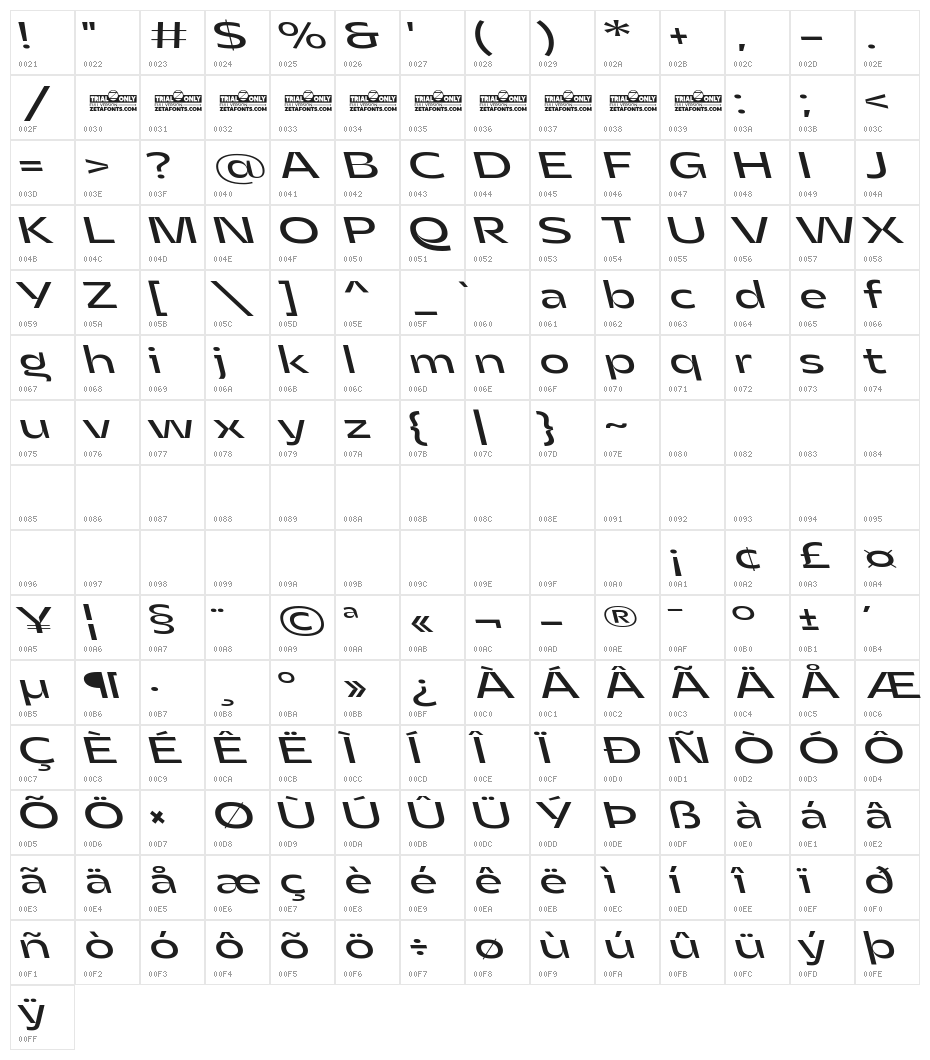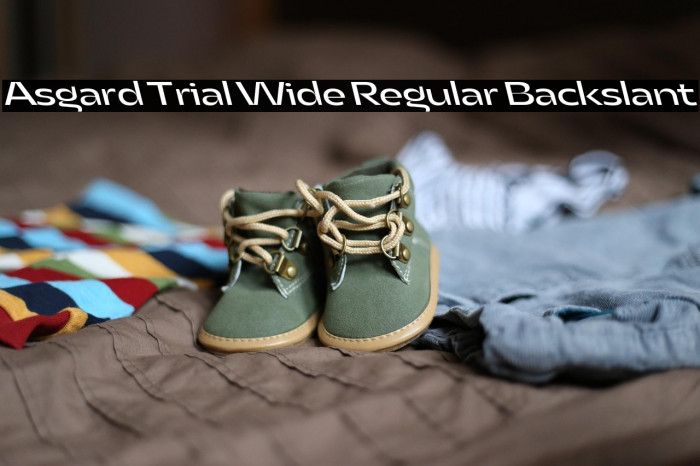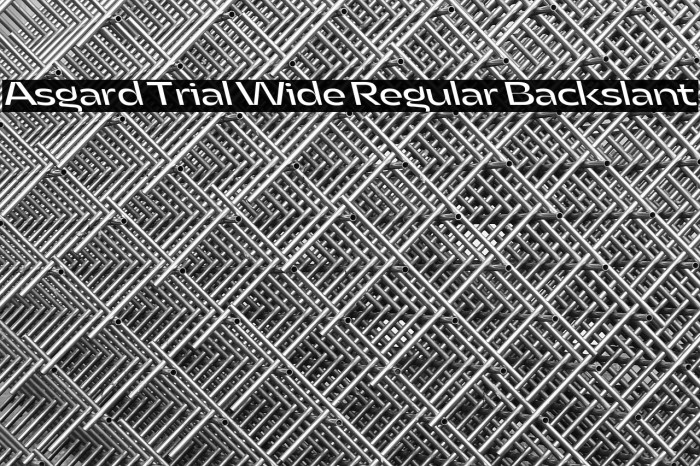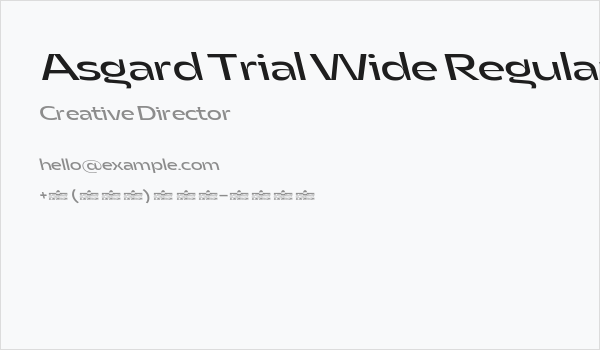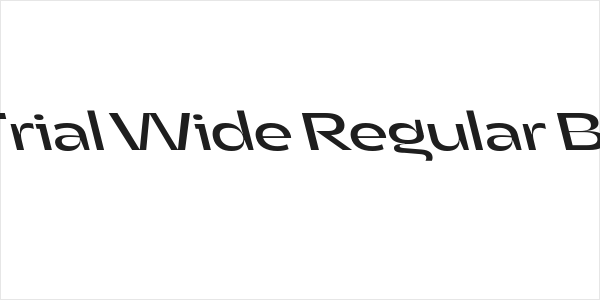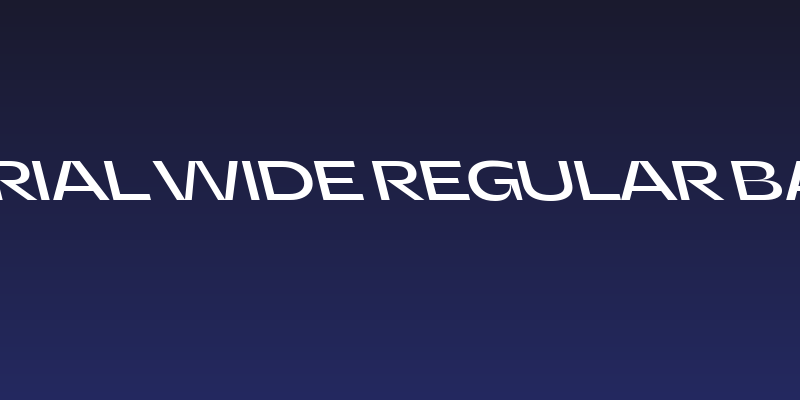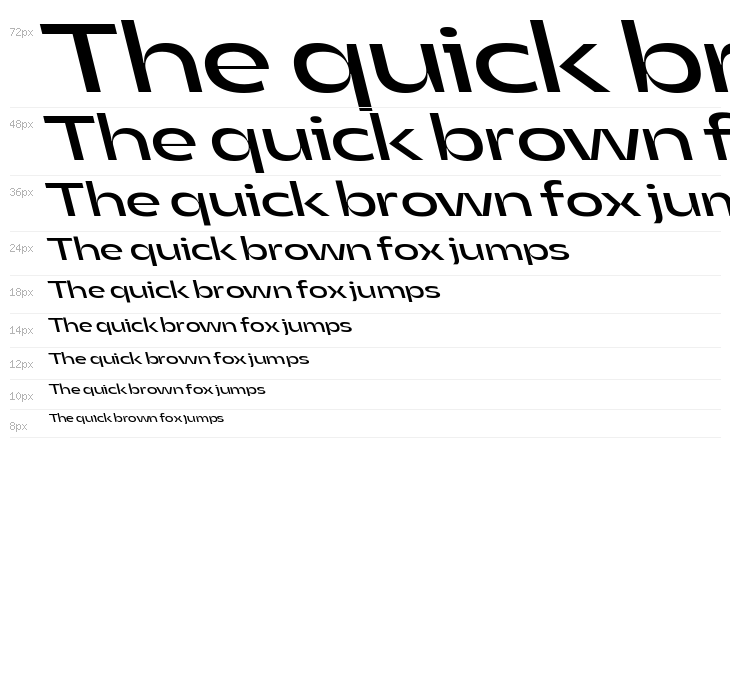
Asgard Trial Wide Regular Backslant Font
Asgard Trial Wide Regular Backslant Description
This font features a distinctive backslant style, giving it a dynamic and forward-moving appearance. The characters are wide and evenly spaced, contributing to a modern and sleek look. The uppercase and lowercase letters maintain a consistent design, with smooth curves and sharp edges that enhance readability. The numerals and special characters are designed to match the overall aesthetic, ensuring a cohesive visual experience. This font's unique style makes it suitable for various creative applications.
| Proposed Projects | Ideal for branding, advertising, and editorial design projects where a modern and dynamic look is desired. |